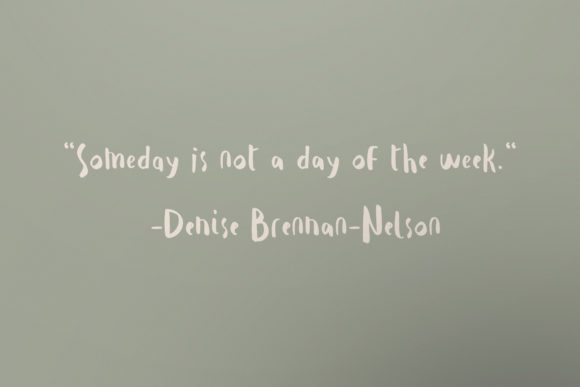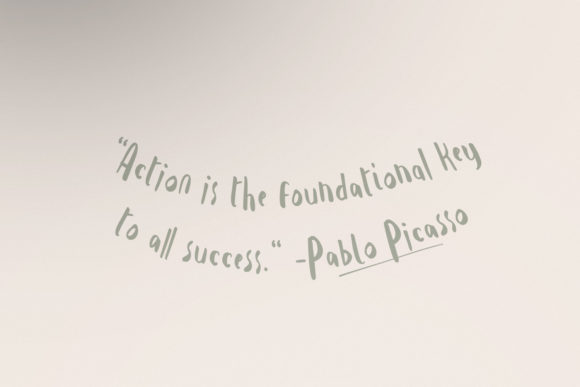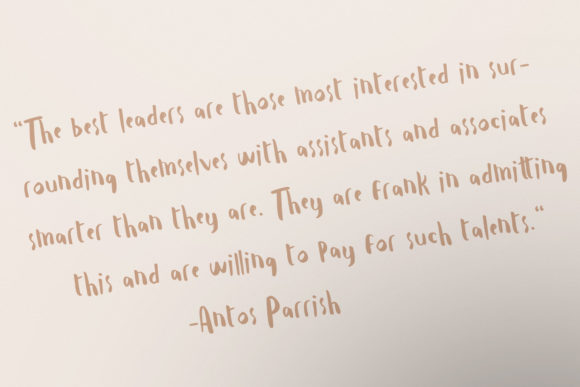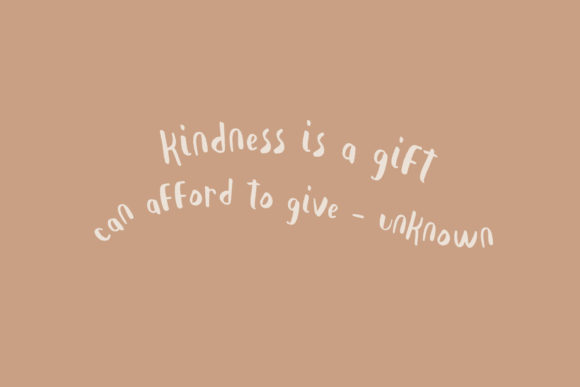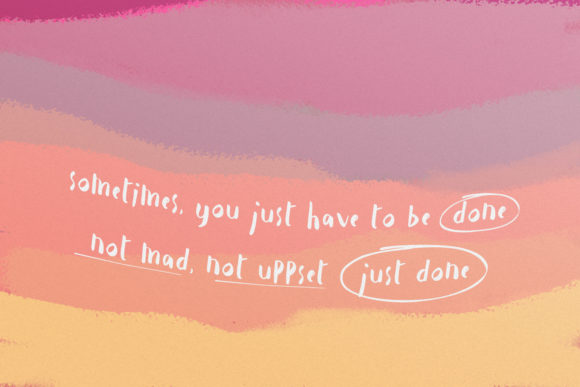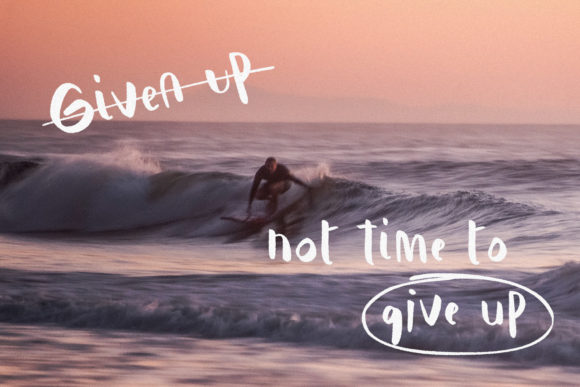
Introduction to Bleu Fumèe Font
Have you ever stared at a blank canvas, searching for the perfect font to bring your creative project to life? That’s exactly where I was when I stumbled upon the Bleu Fumèe Font. Its unique, handwritten style instantly caught my eye, and I knew I had to learn more.
As designers, we’re always on the lookout for high-quality design resources that can elevate our work and set it apart from the crowd. And that’s exactly what Bleu Fumèe Font delivers – a simple, yet elegant solution for any project that requires a touch of personality. With its transparent background and natural feel, this font is perfect for designers who want to add a human touch to their work.
Key Features of Bleu Fumèe Font
- High-quality font design suitable for creative projects, including posters, flyers, and brochures.
- Transparent background, allowing for seamless integration with various design elements.
- Designed with a unique, distressed aesthetic, adding a touch of elegance to any creative project.
Honest Review: Bleu Fumèe Font
I recently had the chance to work with the Bleu Fumèe Font on a creative project and I must say it’s been a game-changer. This beautiful font has a high quality design that adds a touch of elegance to any text.
- What works well: ✨ The transparent background of the font makes it incredibly versatile and easy to use. It’s perfect for overlaying on top of images or using as a standalone design element.
- What works well: ✨ The font is incredibly legible, even at small sizes, making it perfect for use in a variety of creative contexts.
However, I did notice a few limitations. ⚠️ The font is not suitable for use in very large sizes, as the letters can become pixelated. Additionally, the font may not be compatible with all operating systems or software.
Overall, I’m thoroughly impressed with the Bleu Fumèe Font. It’s a high-quality design resource that’s perfect for creative projects that require a touch of sophistication. I would highly recommend it to any designer looking for a unique and elegant font to add to their toolkit.
Bleu Fumèe Font
Tips for Getting the Most Out of Bleu Fumèe Font
To use the Bleu Fumèe Font effectively, make sure to:
- Choose a transparent background to showcase the font’s unique design.
- Experiment with different font sizes and styles to find the perfect look for your project.
The Bleu Fumèe Font is perfect for:
- Designing luxury brands or high-end products.
- Creating elegant invitations or wedding stationery.
- Adding a touch of sophistication to your website or blog.
Alternatives to Bleu Fumèe Font
1. Arial Rounded Font
Arial Rounded Font is a high-quality, sans-serif font that is ideal for creative projects requiring a clean and modern look. It is free to download and features a transparent background, making it suitable for use on various design elements.
Compared to Bleu Fumèe Font, Arial Rounded Font is more versatile and can be used in a wider range of design contexts. While Bleu Fumèe Font has a unique, smoky texture, Arial Rounded Font provides a sleek and sophisticated appearance.
2. Lobster Font
Lobster Font is a creative, script font that is perfect for adding a touch of elegance to any design project. It is a popular design resource that is available for free download and features a high-quality, transparent background.
When compared to Bleu Fumèe Font, Lobster Font has a more organic, handwritten feel. While Bleu Fumèe Font has a strong, smoky texture, Lobster Font is more delicate and refined.
Pacifico Font is a beautiful, script font that is ideal for creative projects requiring a touch of sophistication. It is a high-quality design resource that is available for free download and features a transparent background, making it suitable for use on various design elements.
Compared to Bleu Fumèe Font, Pacifico Font has a more relaxed, beachy vibe. While Bleu Fumèe Font has a strong, smoky texture, Pacifico Font is more laid-back and effortless.